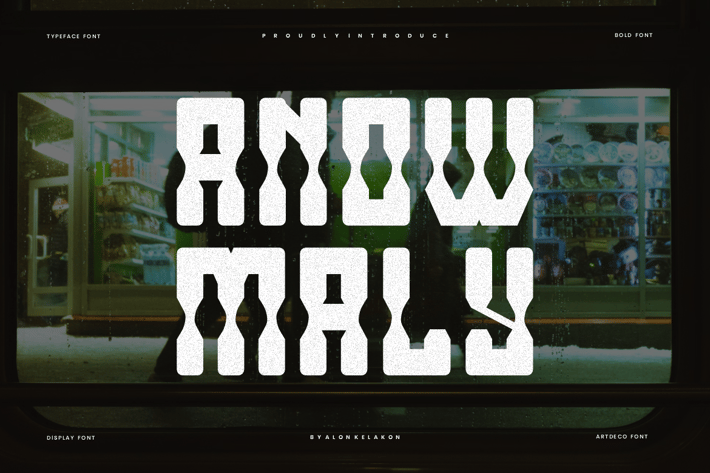
Anowmaly - Modern Serif Font
Anowmaly Font is unique . Ready to use for your design like labeling, movie sceen, poster, movie title, gigs, album covers, logos, and much more.